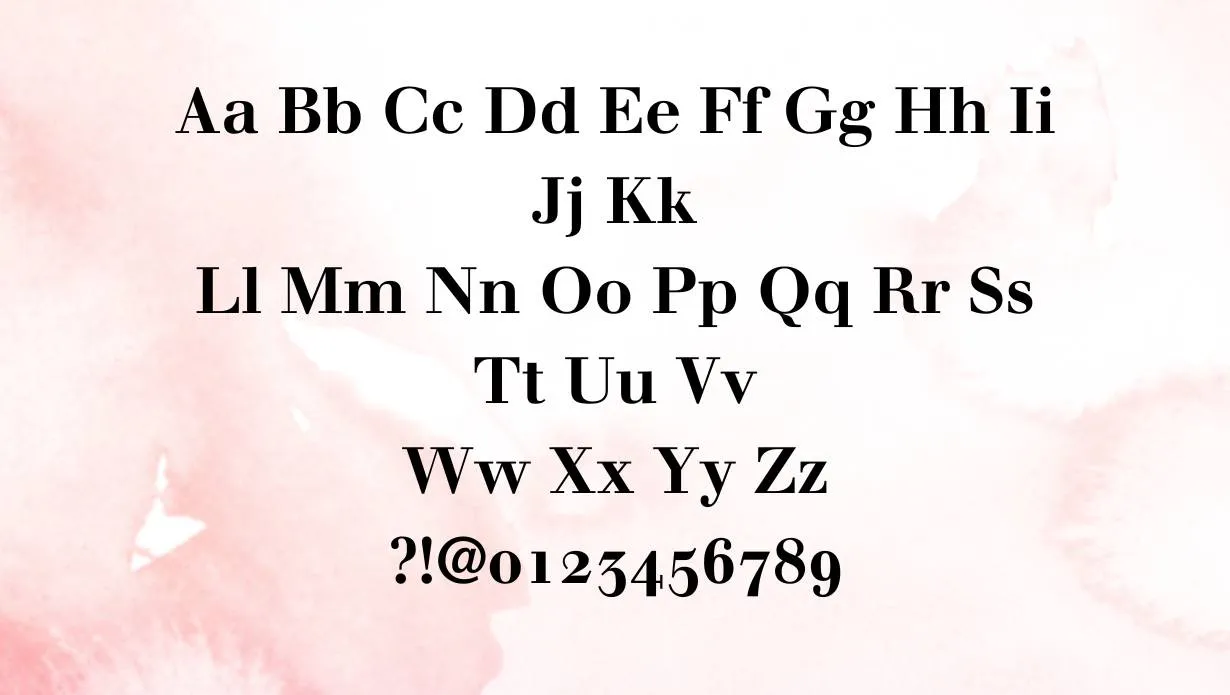
The Walbaum font strikes a balance between traditional charm and modern sophistication. Frequently used in branding, logos, or any design aiming for a touch of timeless style and elegance, this font offers a classic and refined typographic solution for various design applications.
| Name | Walbaum Font |
| Designer | Justus Erich |
Its allure lies in its ability to bring a sense of classic sophistication to design elements, offering a timeless and elegant appearance to the text.